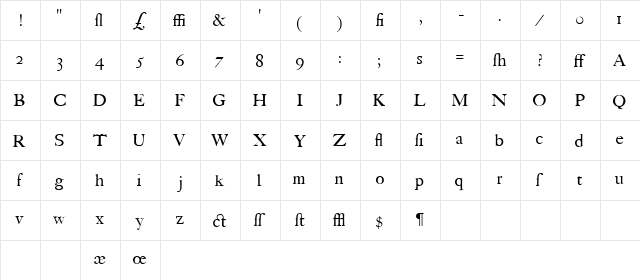
Caslon Book WF Regular
Design Context for Caslon Book WF Typeface
Caslon Book WF offers clean, dependable letterforms without strong stylistic allegiance, making it a practical choice for designers who need flexibility.
Pro Tip: Use Caslon Book WF in both headline and body roles to test its range before committing to a single application.